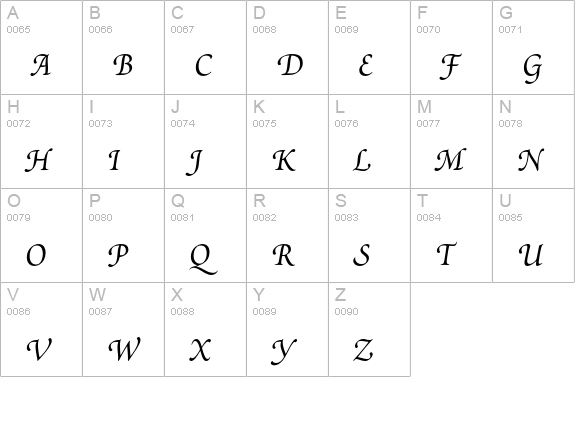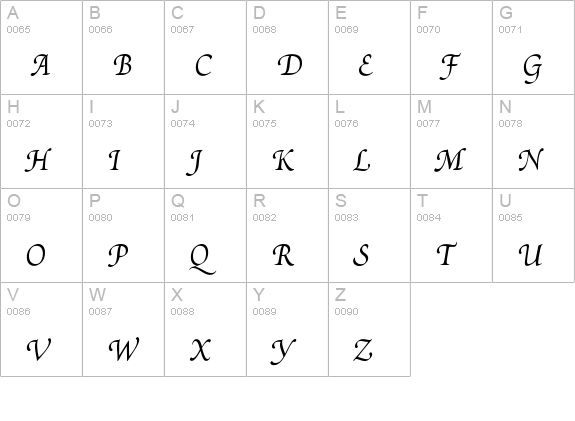
Poetica Chancery III Font Details
Poetica Chancery III font is a sophisticated and elegant typeface that exudes timeless charm and artistic flair. Its intricate and flowing design captures the essence of classical calligraphy, making it perfect for adding a touch of luxury to any project. The graceful curves and delicate details of Poetica Chancery III evoke a sense of refinement and beauty, making it ideal for formal invitations, wedding stationery, and upscale branding. What sets Poetica Chancery III font apart is its versatility and ability to convey both tradition and modernity. Whether used for elegant titles or stylish body text, this font delivers a touch of sophistication that is sure to impress. Its legibility and readability make it suitable for a wide range of design applications, from print materials to digital media. And the best part? Poetica Chancery III font is freely available to download at FontsMarket.com, allowing designers and creatives to access this exquisite typeface easily. Elevate your projects with the timeless beauty of Poetica Chancery III font and let its graceful strokes and classic charm bring a touch of elegance to your designs.